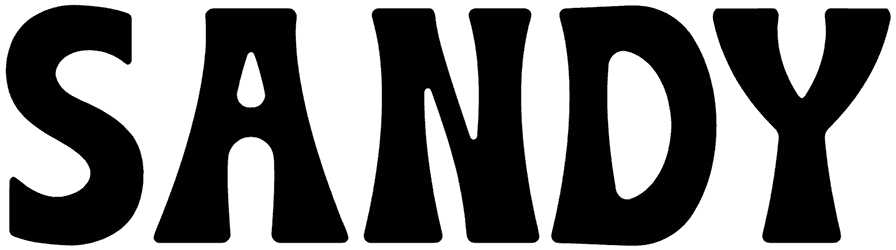
Wocke Funky Font
Incorporating this all-caps funky font into any graphics can liven up your design. A fancy image with a shaking effect approaches to turn a laid style into a sweet one. Here, over and over, the ever-growing library of our website renders many graphics to improve your typography in a pleasant tone.
Save your time, Wocke Funky font is crafted with stunning design, bringing immense prominence to your tasks of posters, movies, or others to leave a lasting impression.